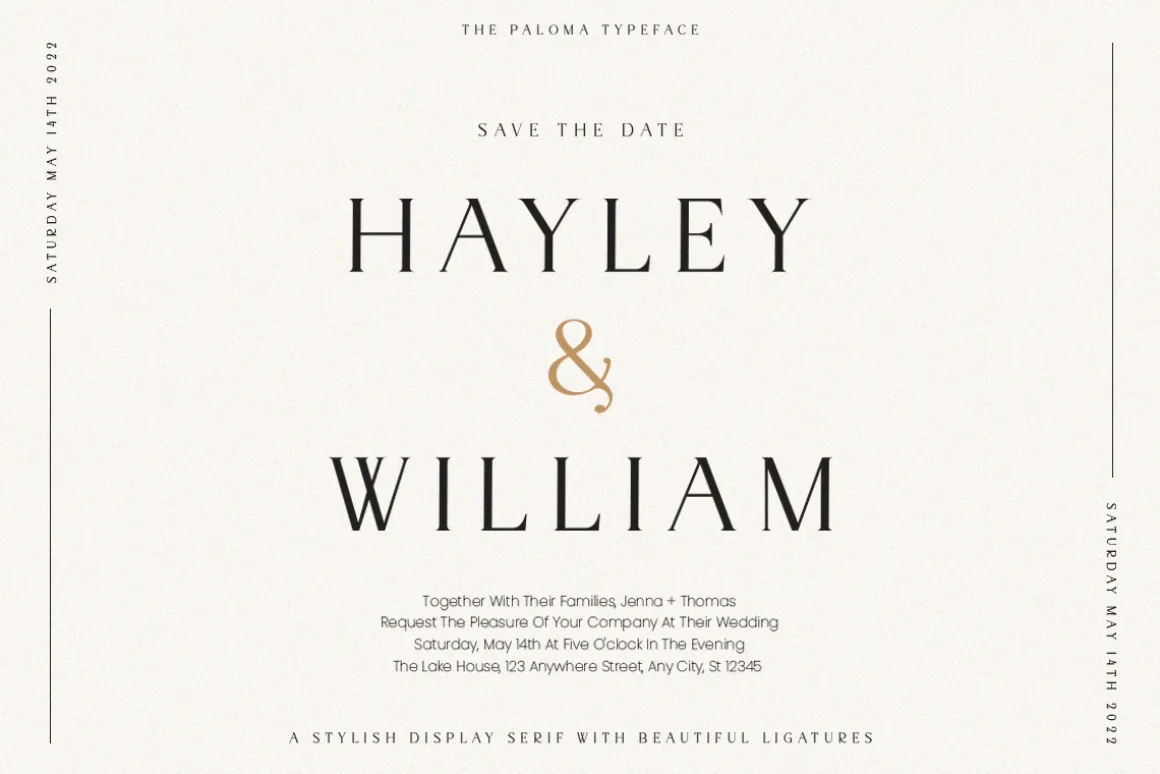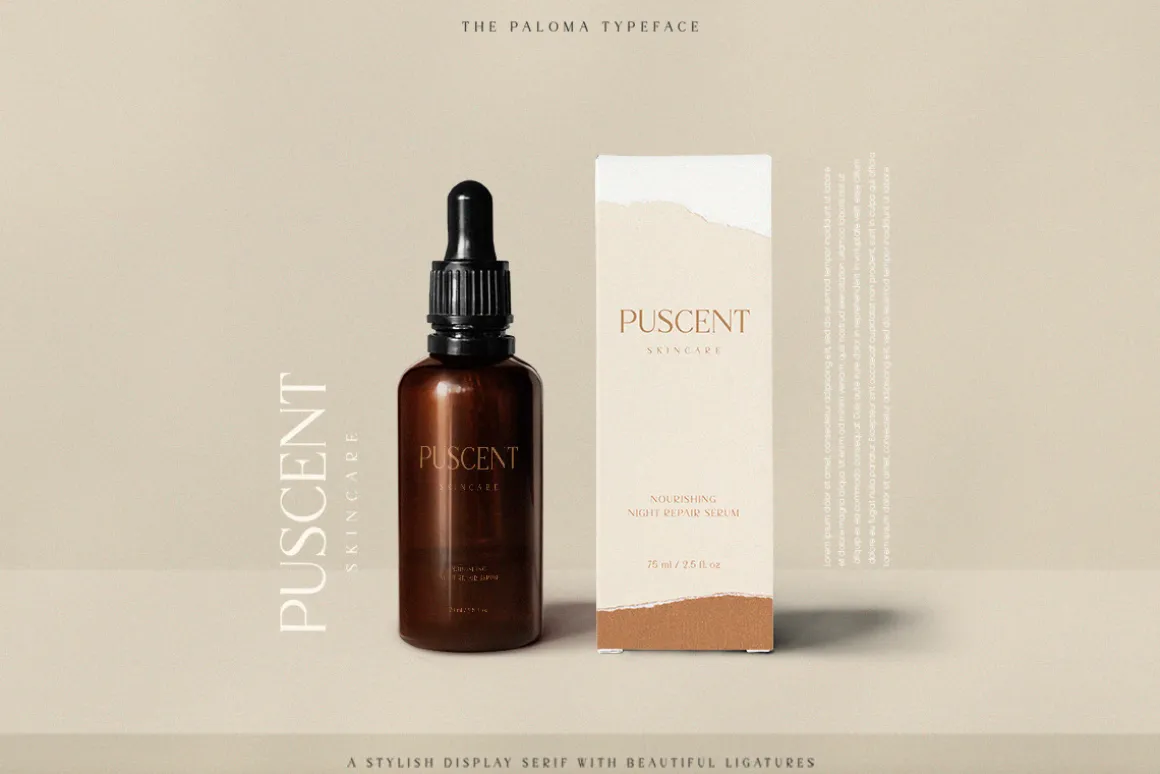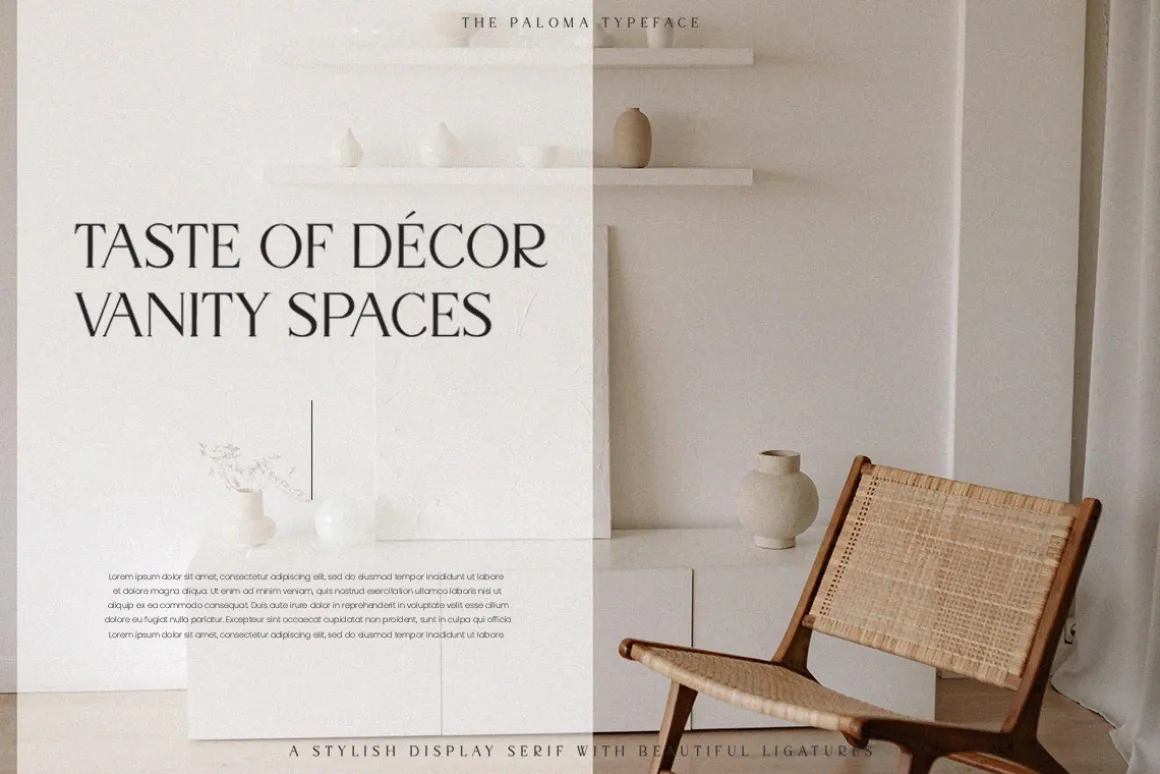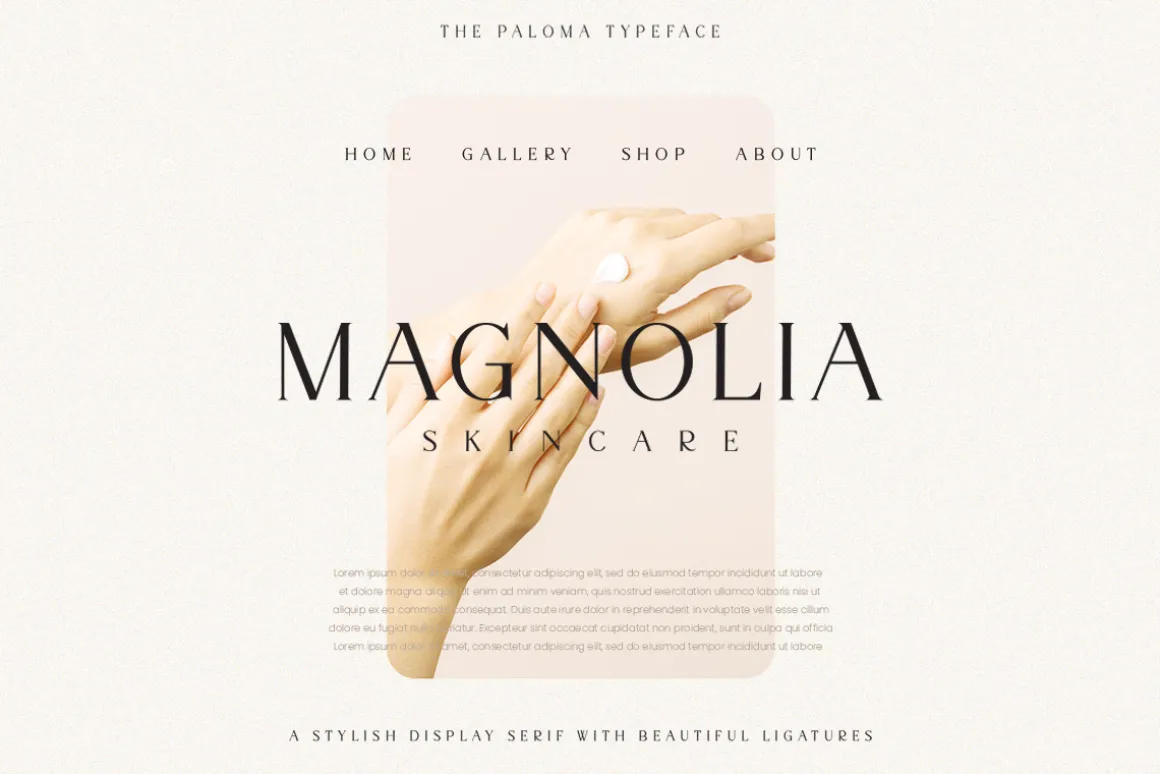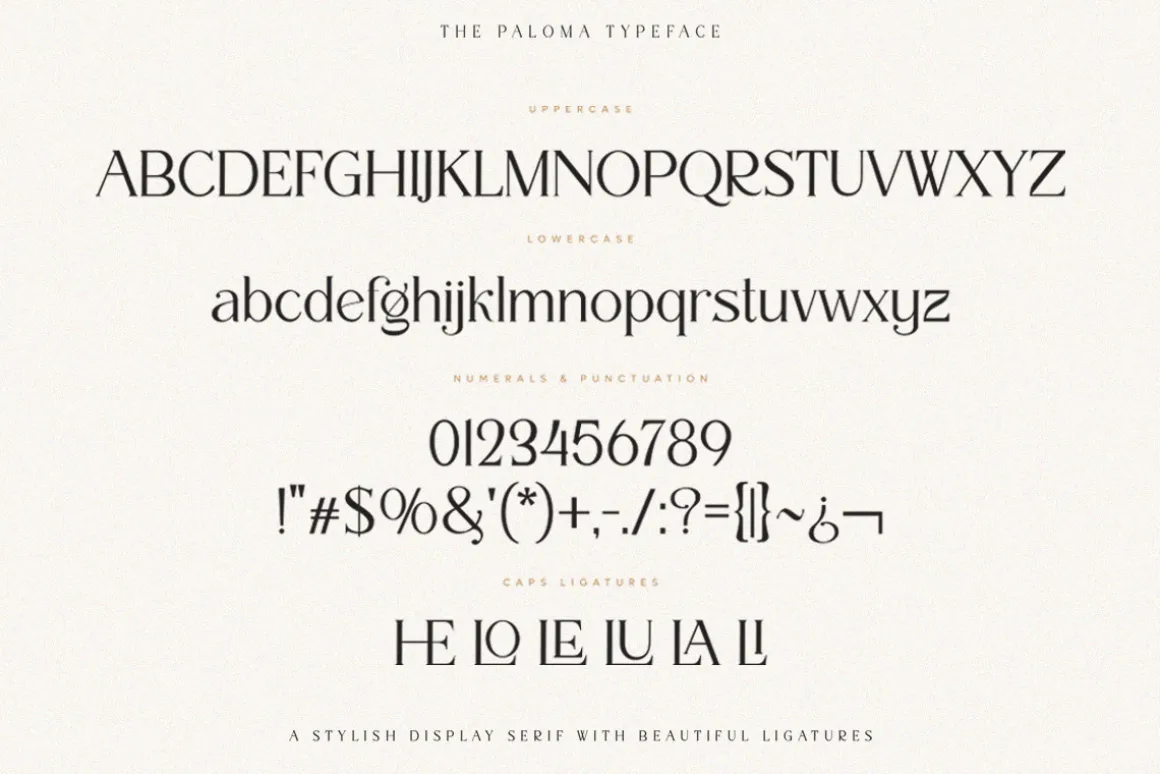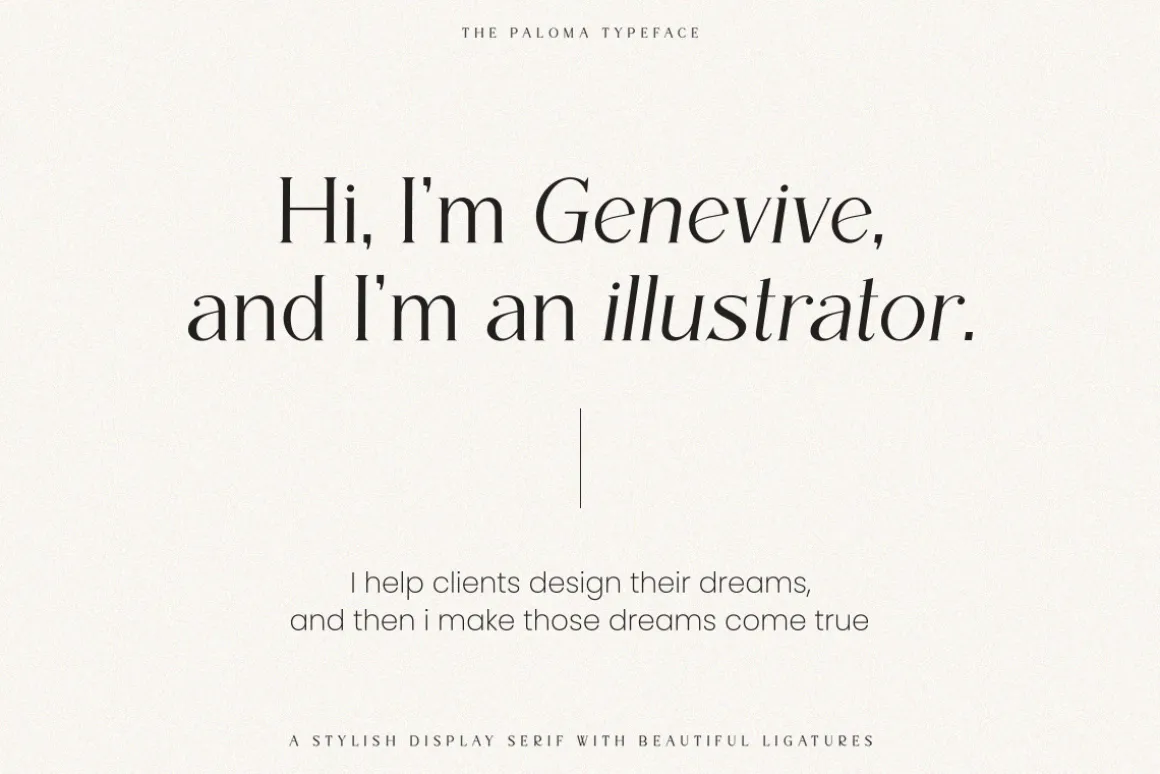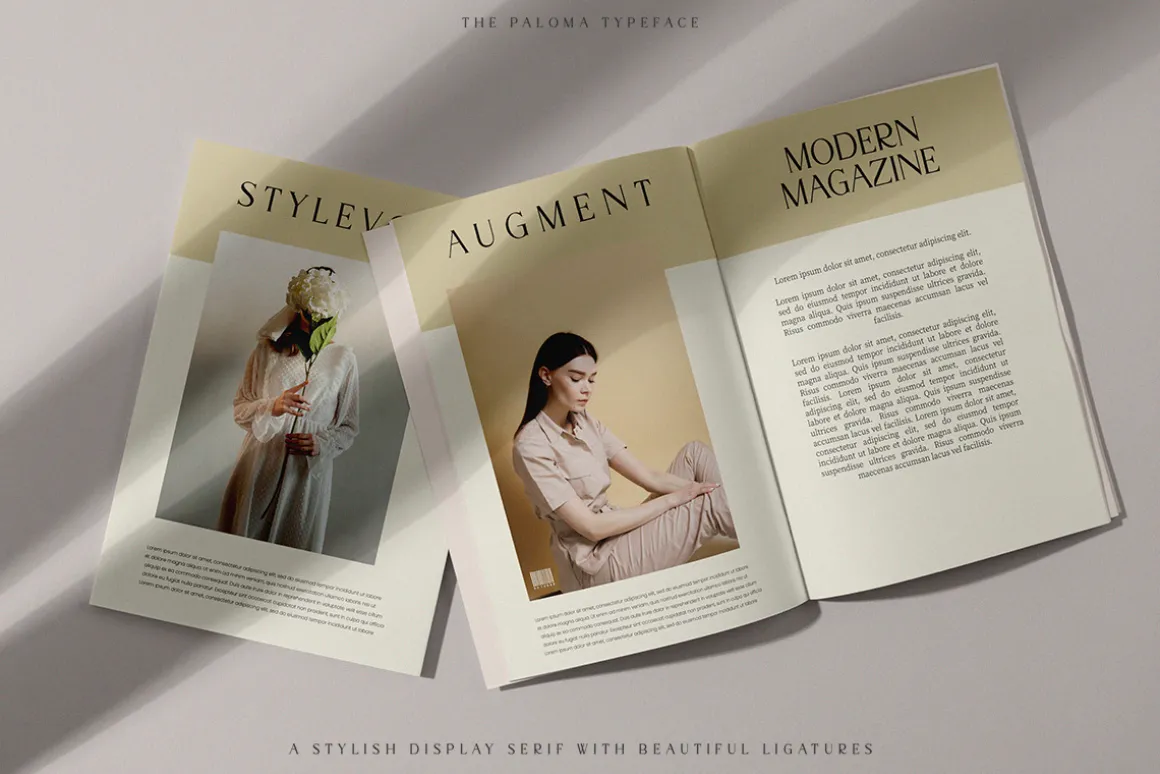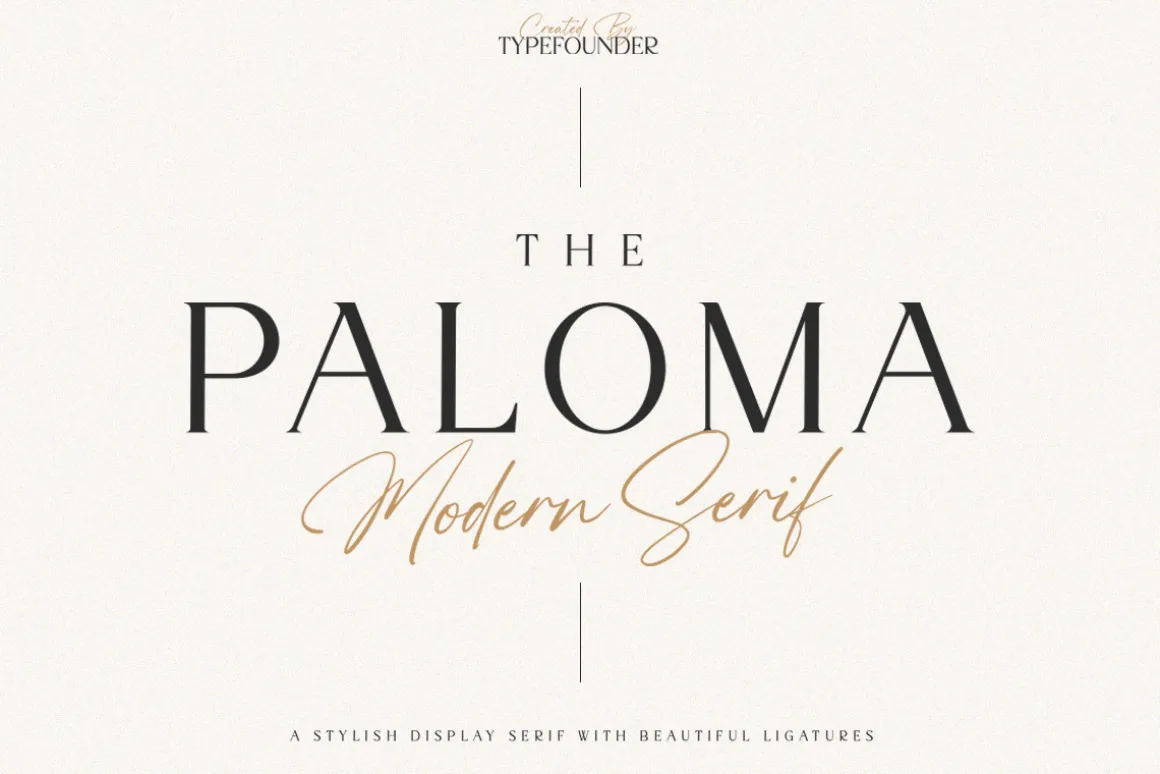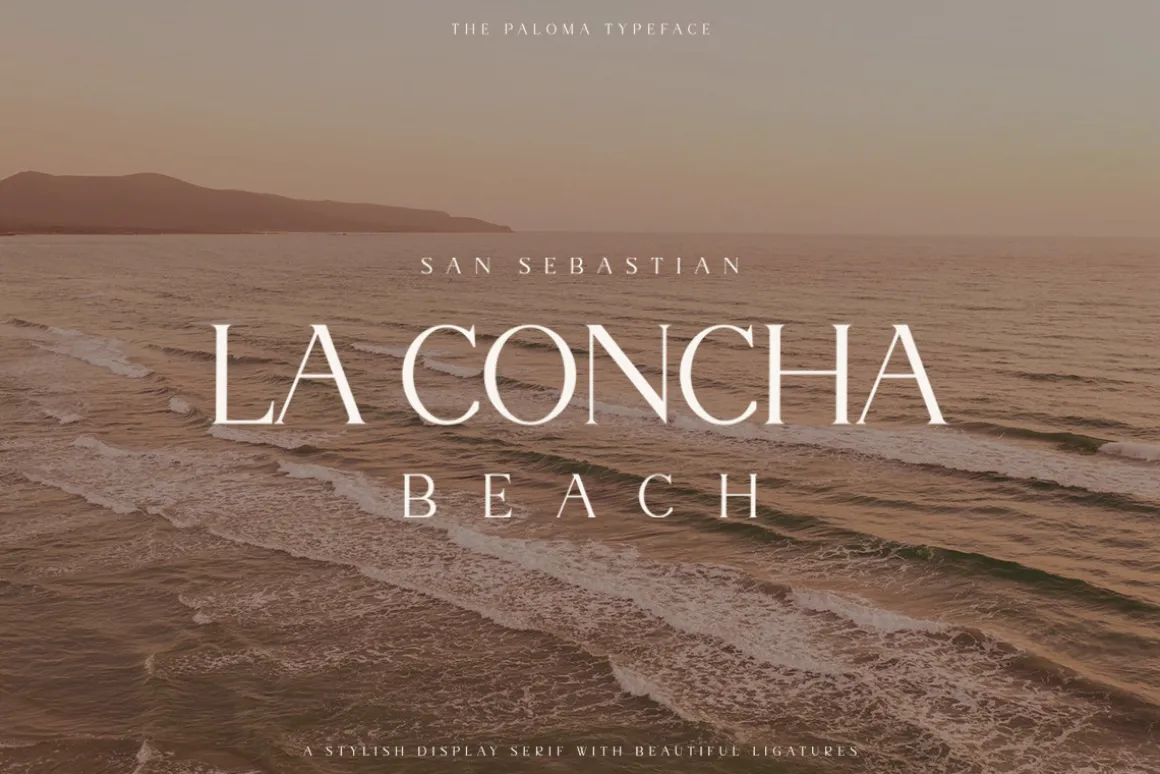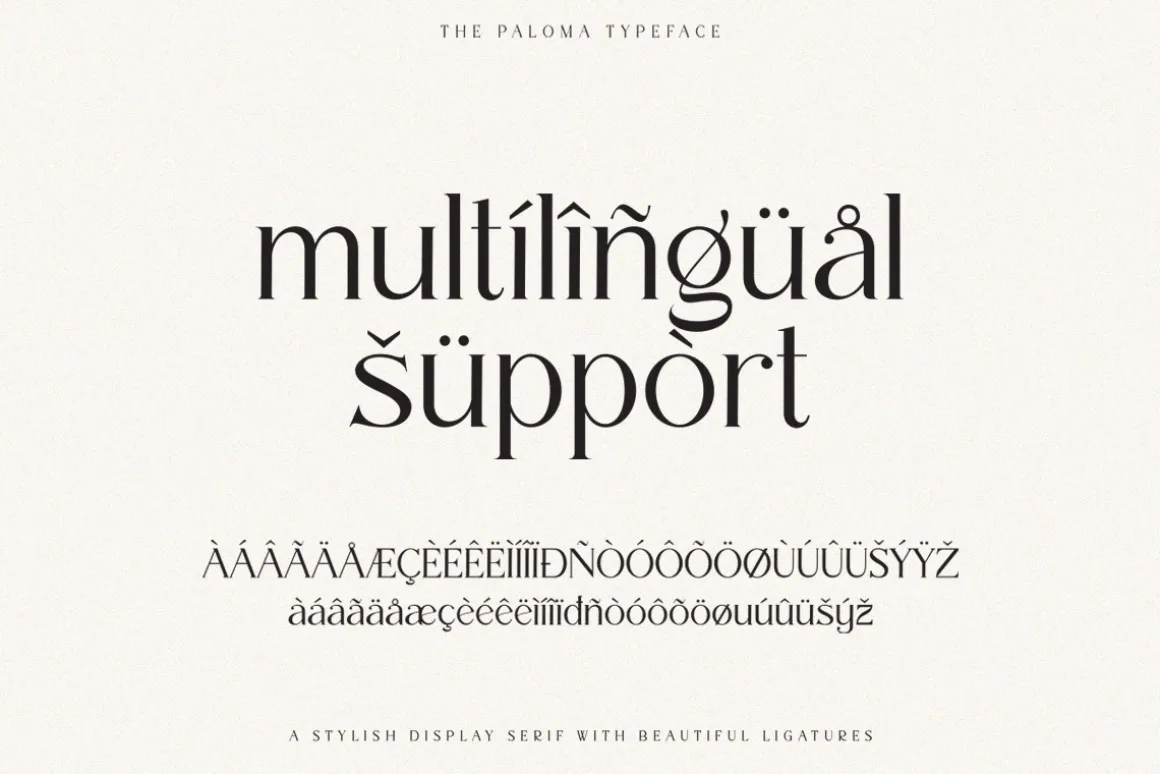
The Palomais a Modern Serif typeface with ligature & alternates that looks incredible in both large and small settings as a display with italic version. Suitable for any branding purpose.